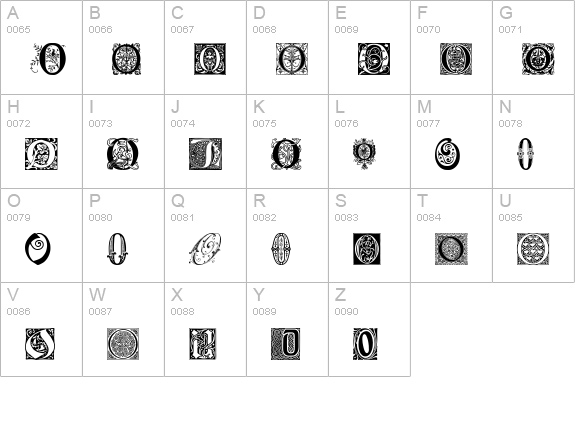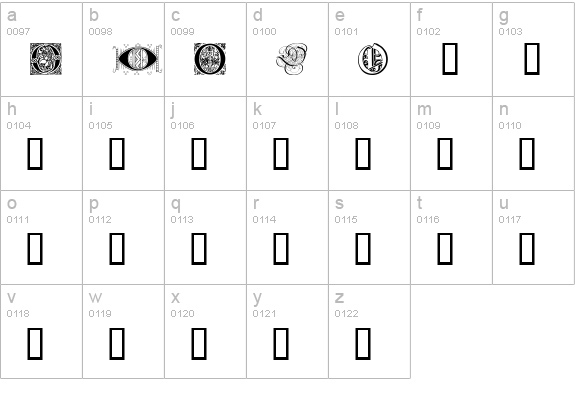
Ornamental Initials O Font Details
Ornamental Initials O font is a stunning and intricate display typeface that exudes elegance and sophistication. With its intricate details and ornate design, this font is perfect for creating eye-catching headers, titles, and decorative elements in your designs. The ornamental O initial adds a touch of luxury and charm to any project, making it stand out from the crowd. The best part? Ornamental Initials O font is completely free to download at FontsMarket.com. Whether you're working on a branding project, wedding invitation, or any other design that calls for a touch of elegance, this font is a fantastic choice. Download it today and elevate your designs with the timeless beauty of Ornamental Initials O font.